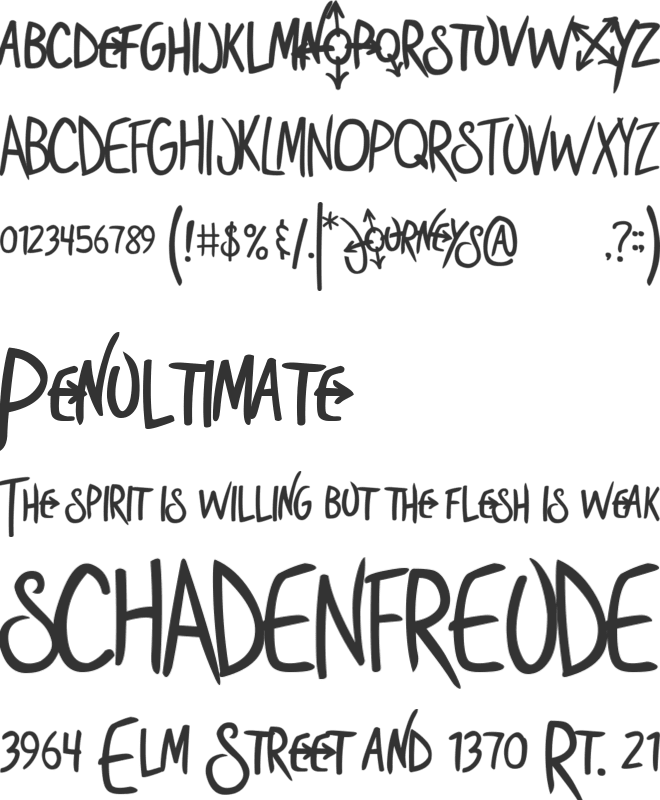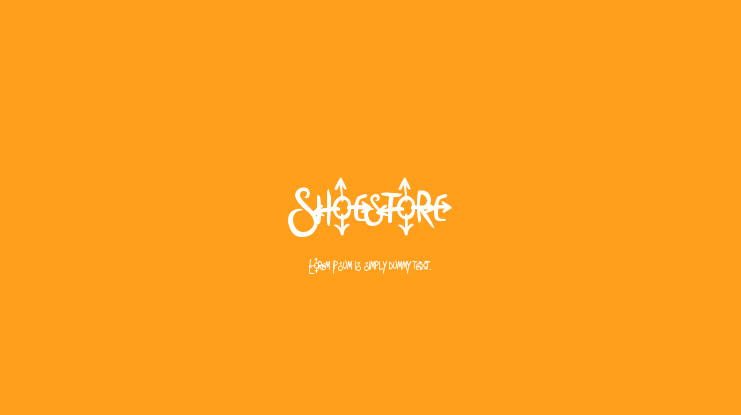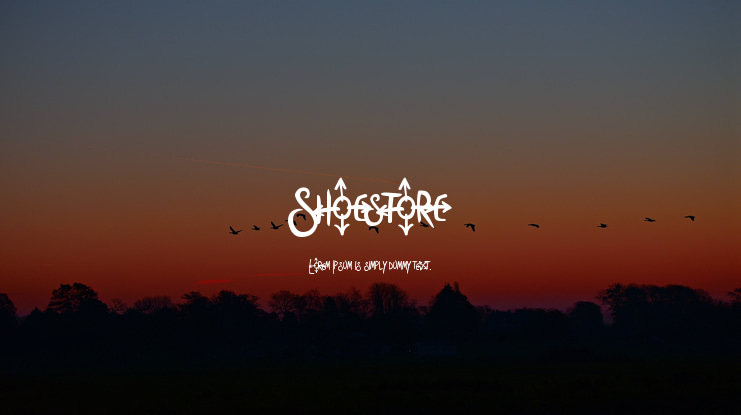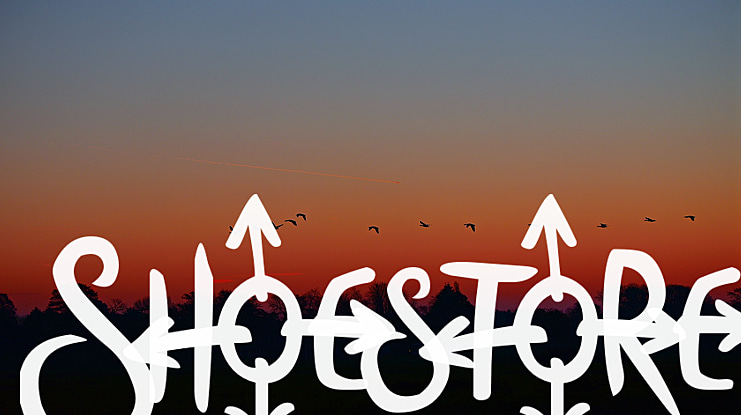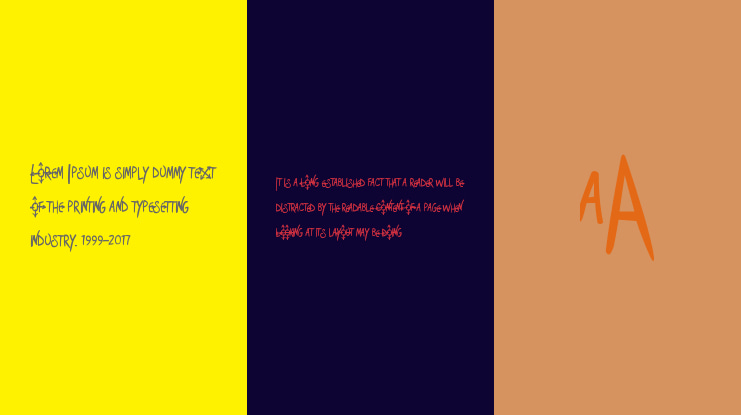
Shoestore Font
Thanks for downloading "Shoestore" from Insanitype! Font Design. This font is based on the lettering of the Journeys Shoe Store logo. I had to straighten it out a bit because the original logo followed a curve. The grave character (this one: `) produces the original Journeys Shoe Store logo, following the curve and all. Other than the grave, this font includes all of the keyboard keys, and a few extras. Any undefined letter (international letters, etc.) produce the Journeys handprint logo with "Insanitype!" written in it. If you use the font, please let me know!